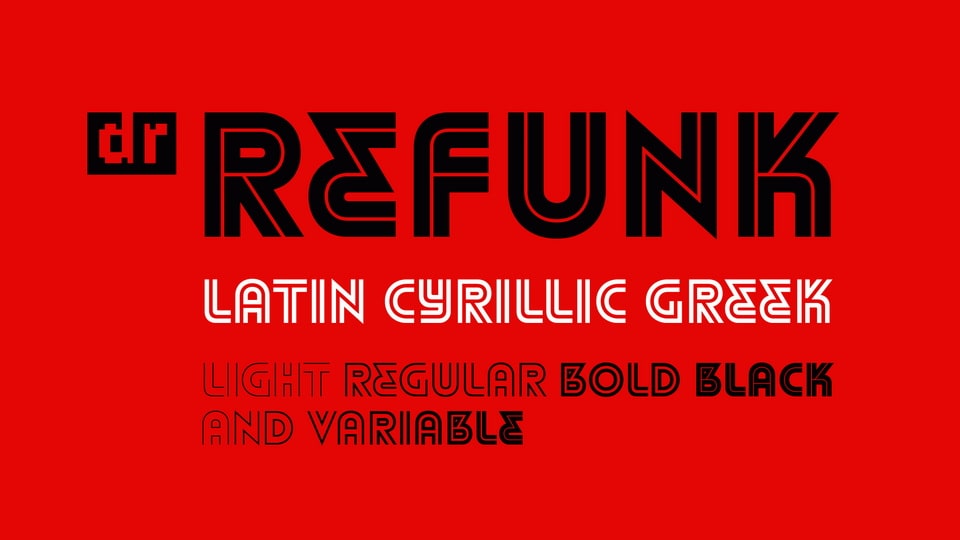
Download DR Refunk font, a stripped geometric typeface in the traditions of modernism. Its lines blended with stronger letterforms, creating a visually more dynamic typeface.
Designer: Dmytro Rastvortsev